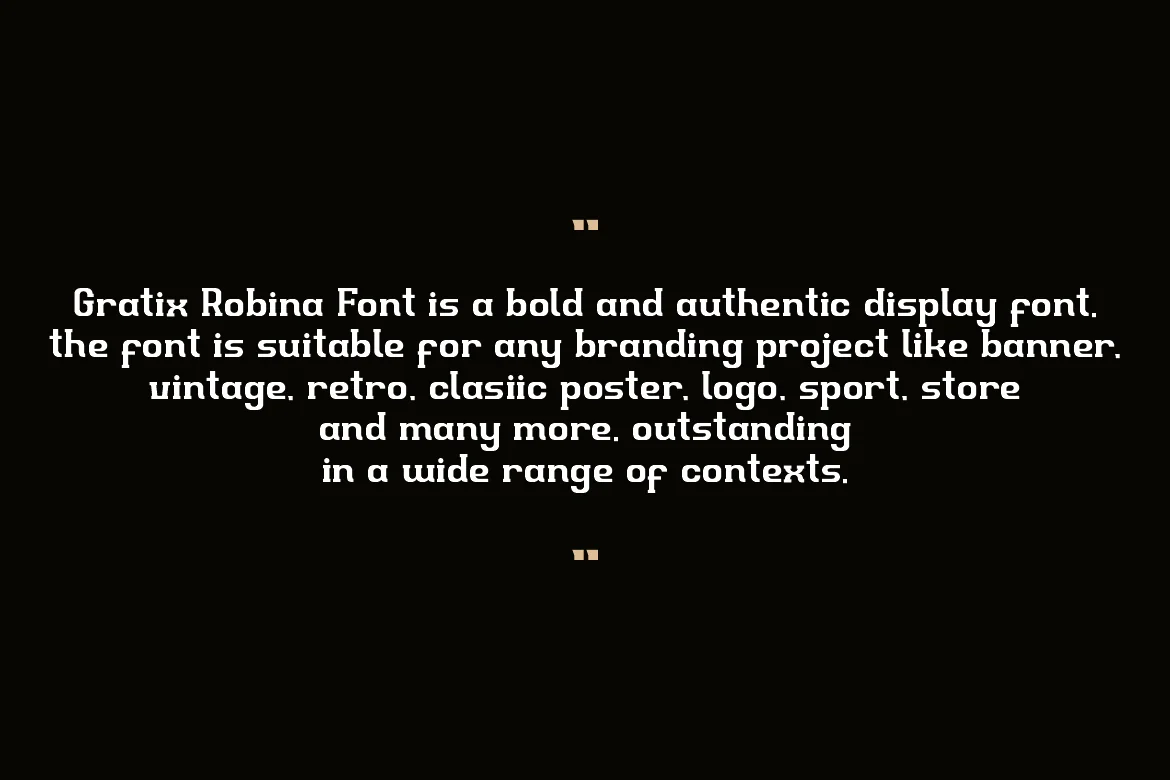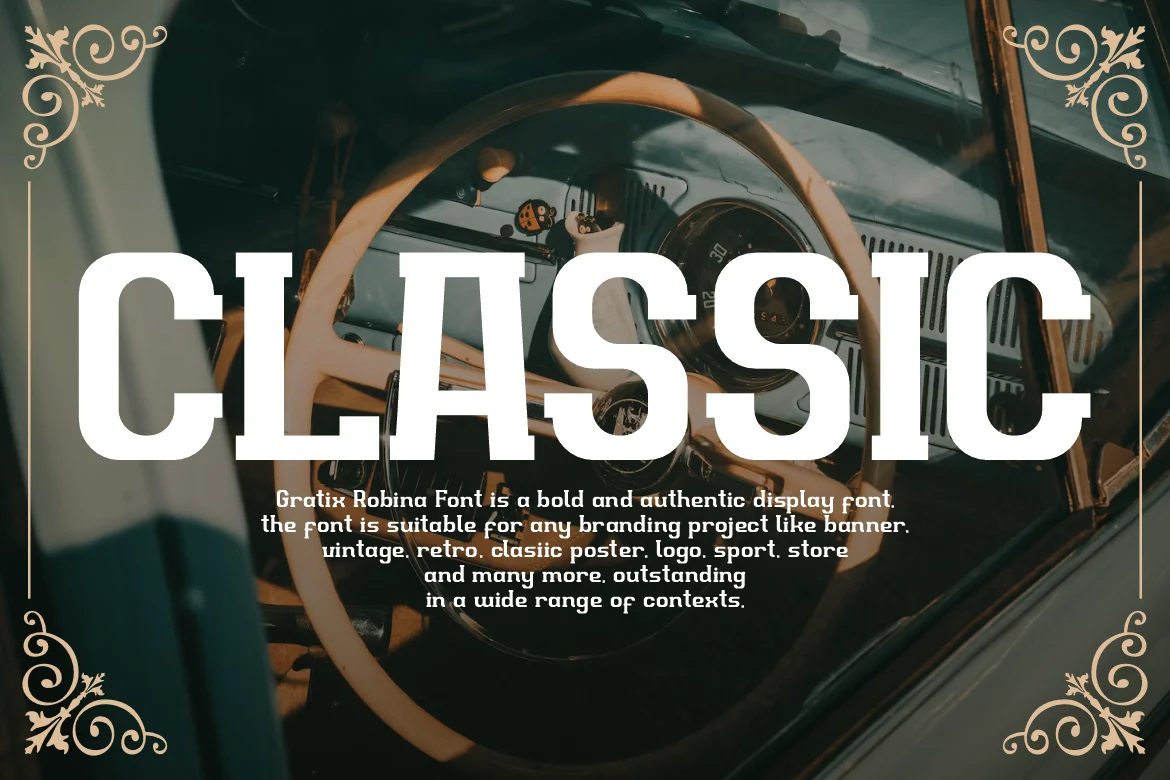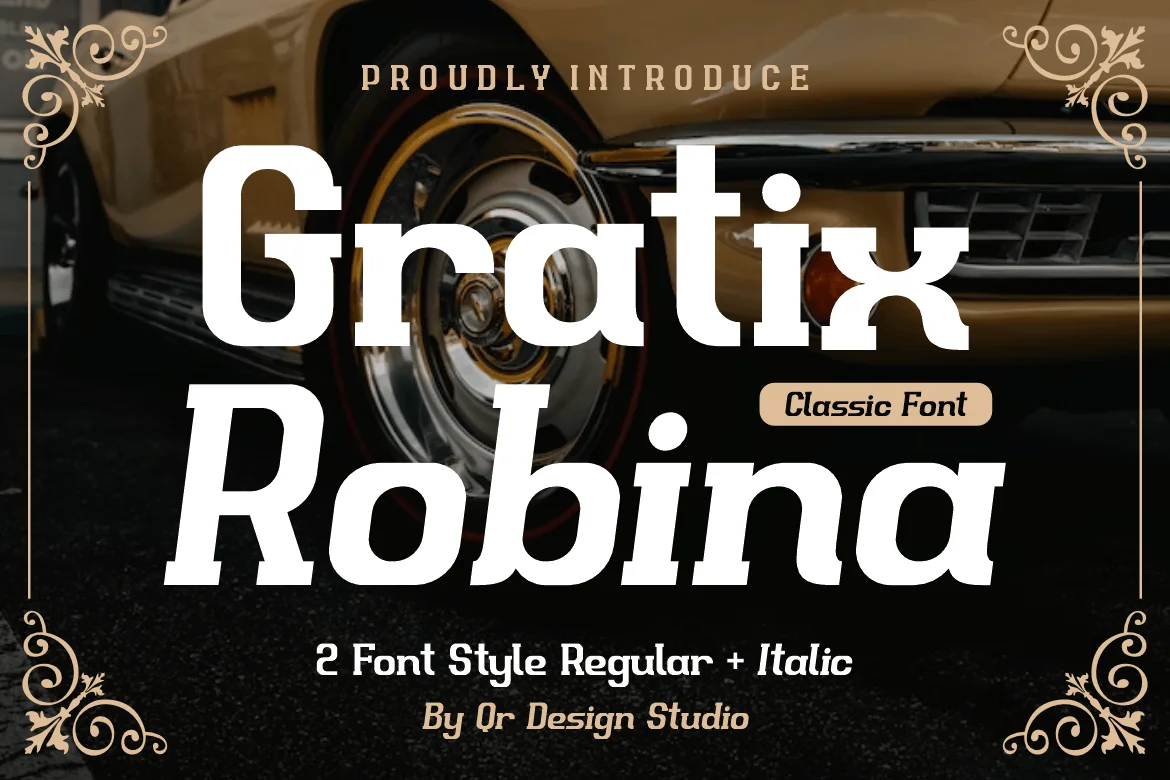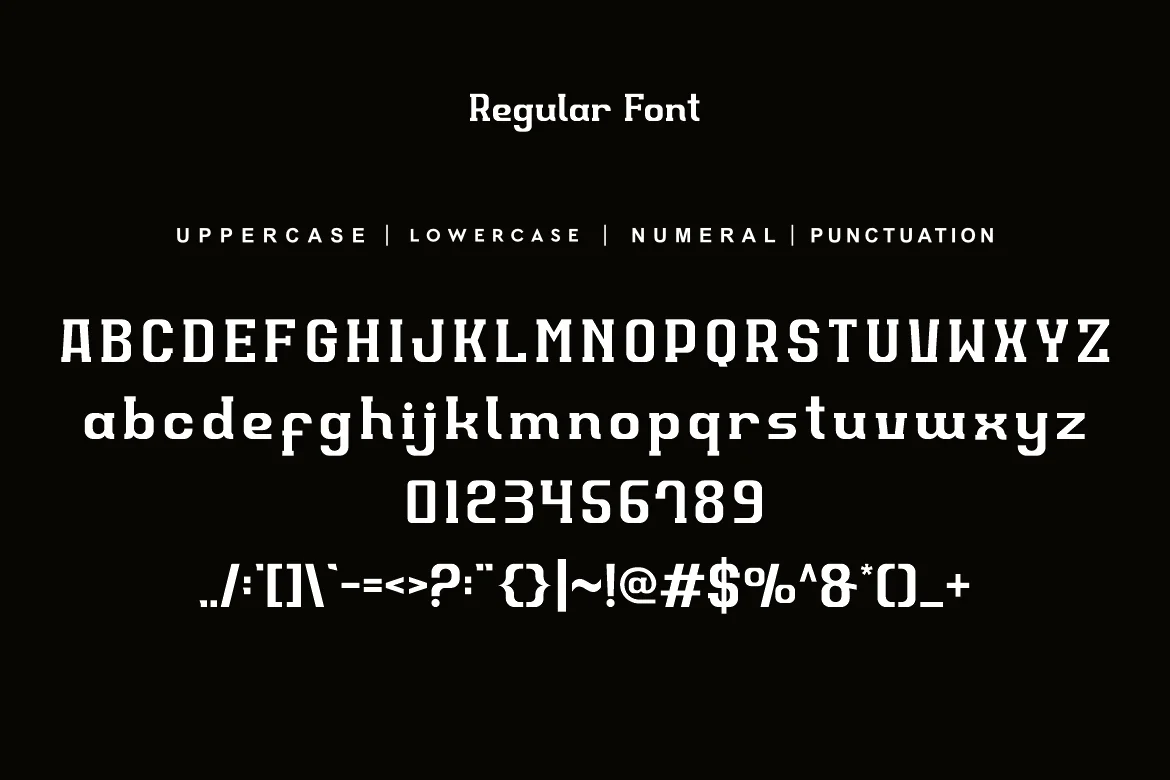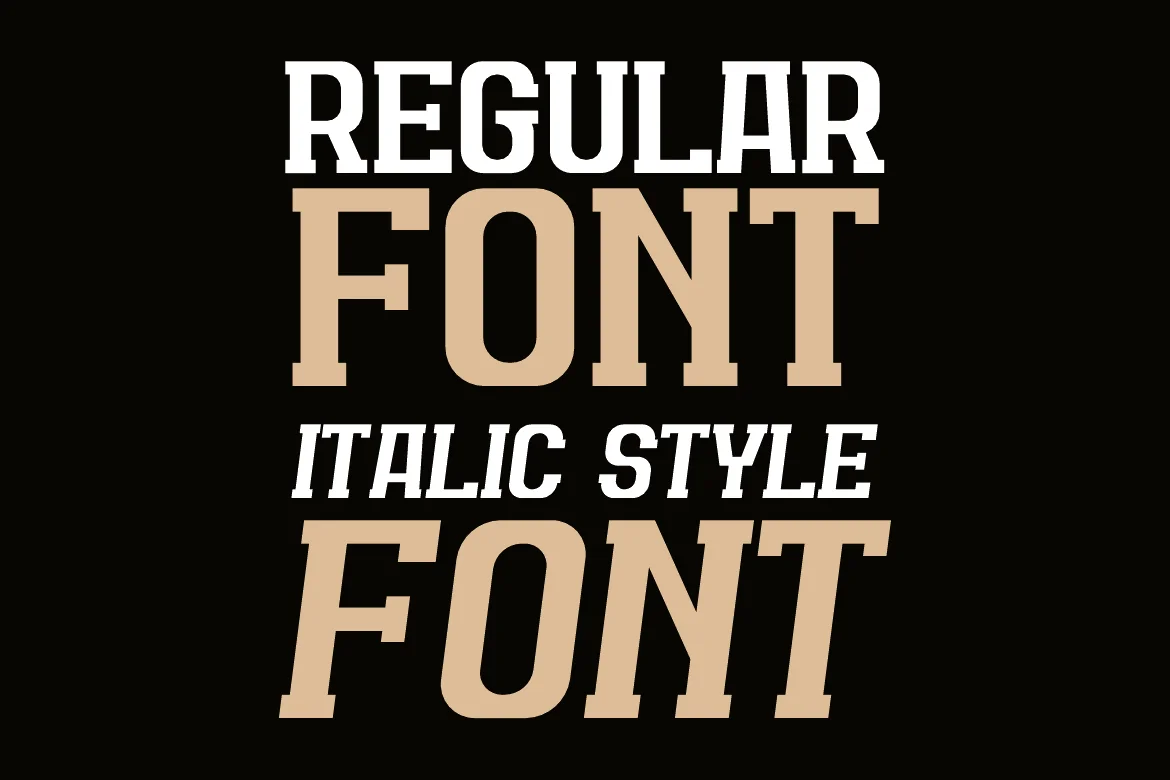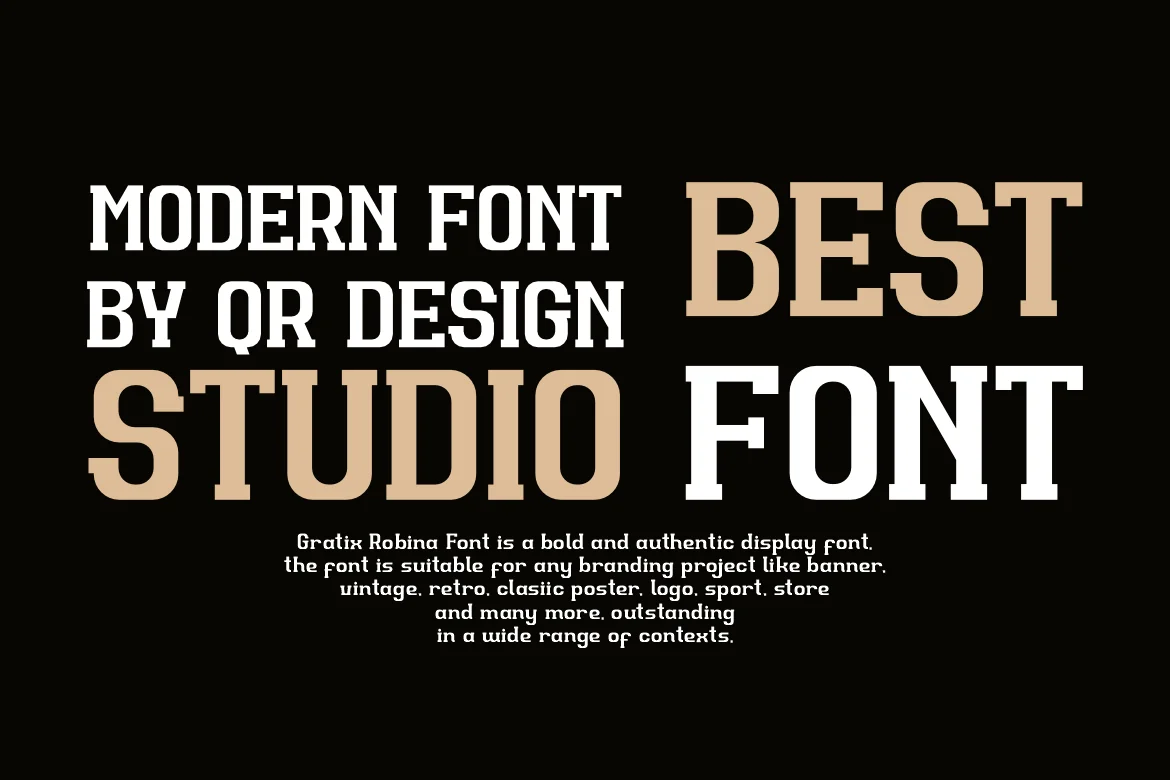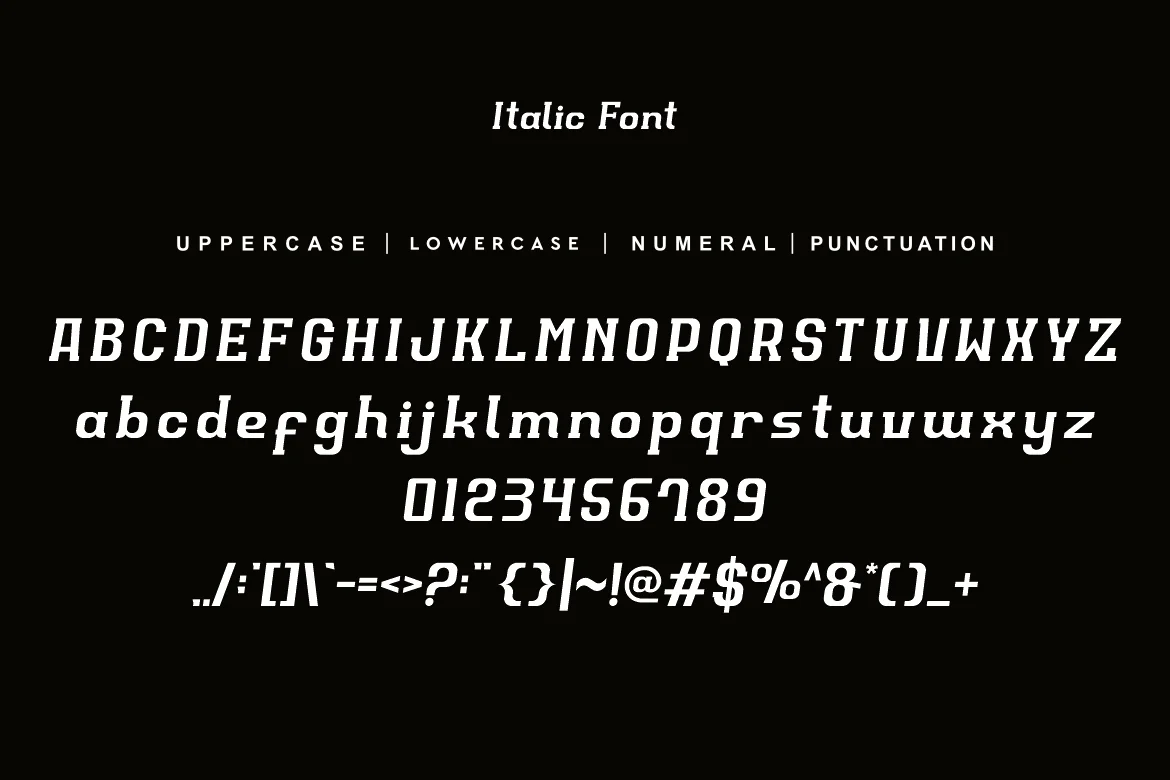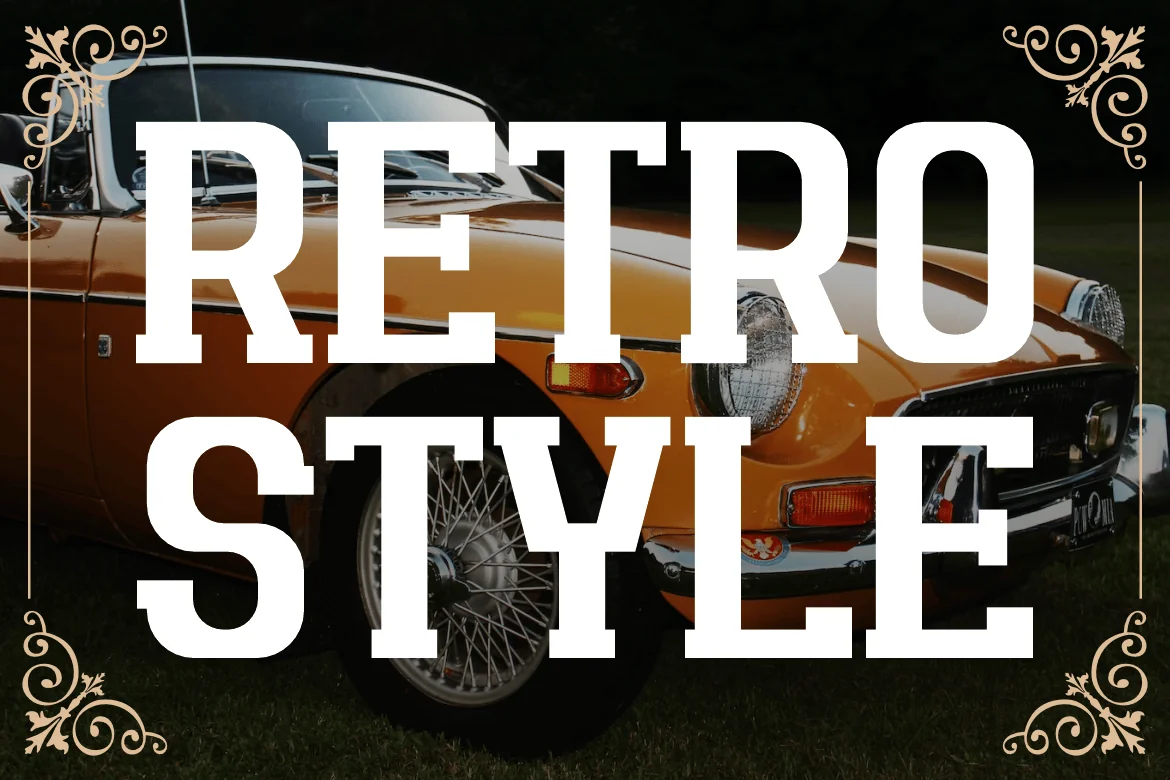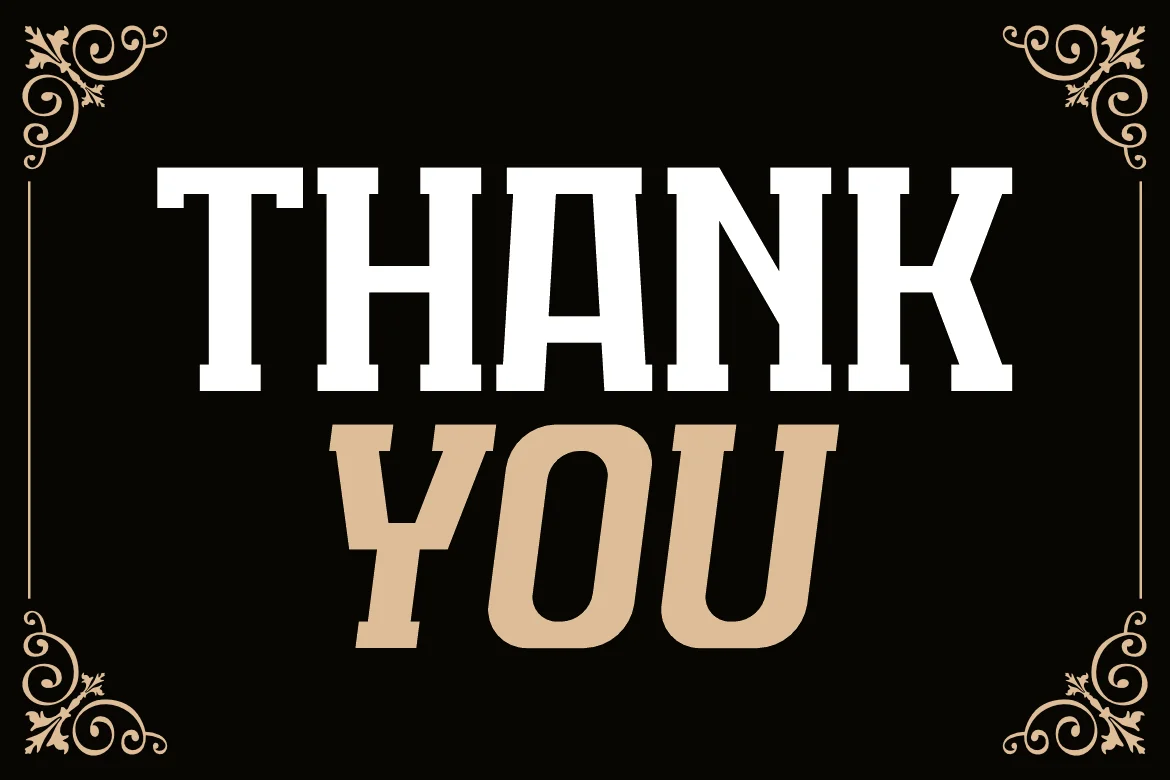
Gratix Robina – Classic Font
Gratix Robina – Classic Font is a bold and authentic display font.
The font is suitable for any branding project like retro, vintage, poster, classic, logo, sport, and many more.
Outstanding in a wide range of contexts.